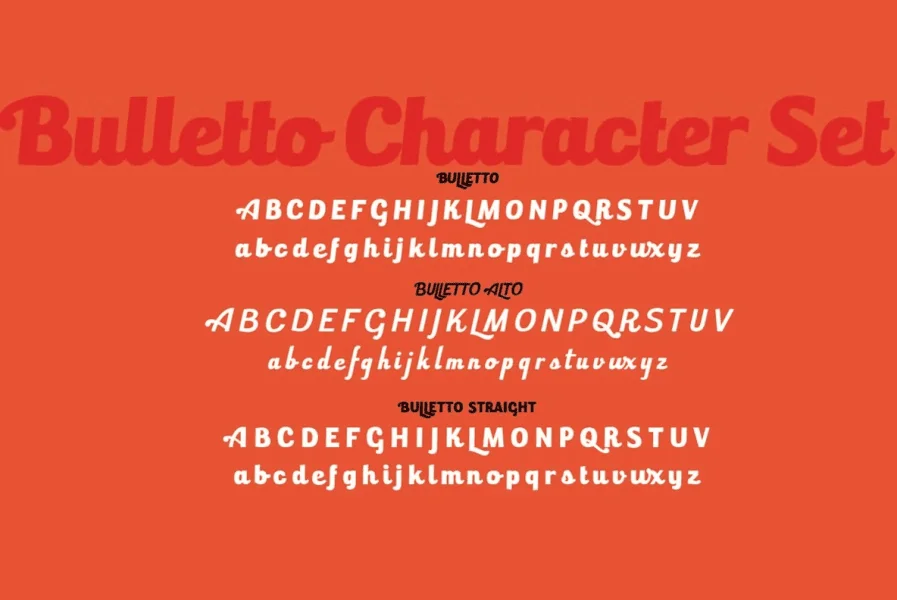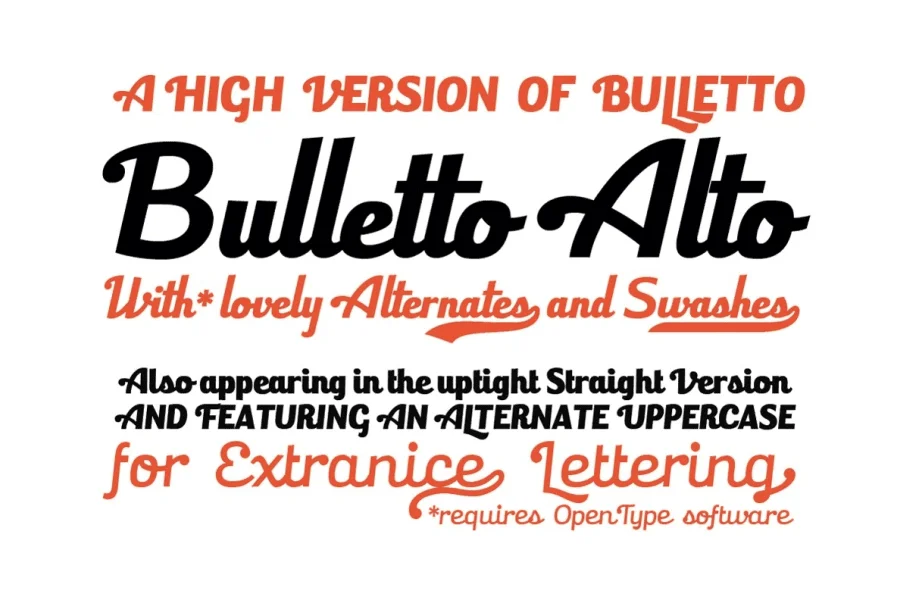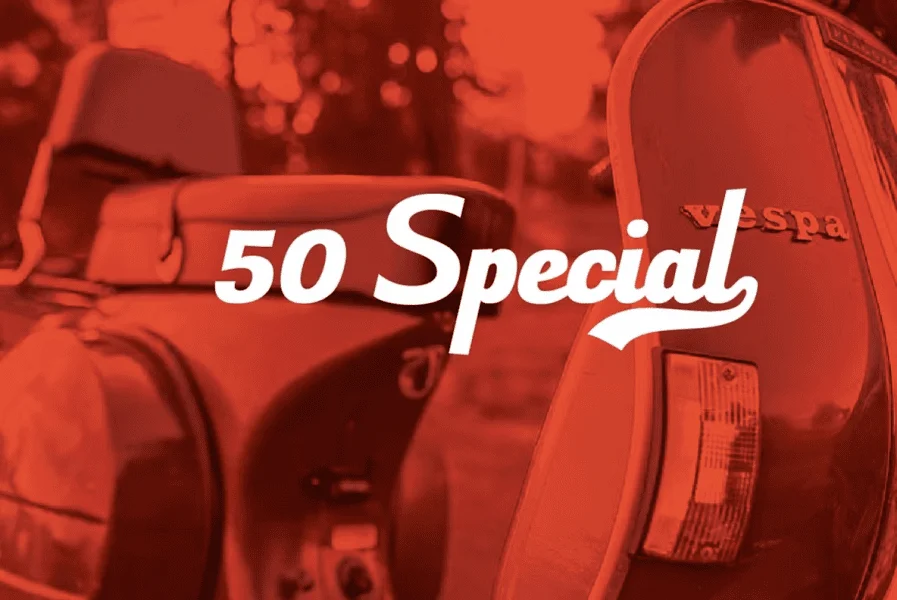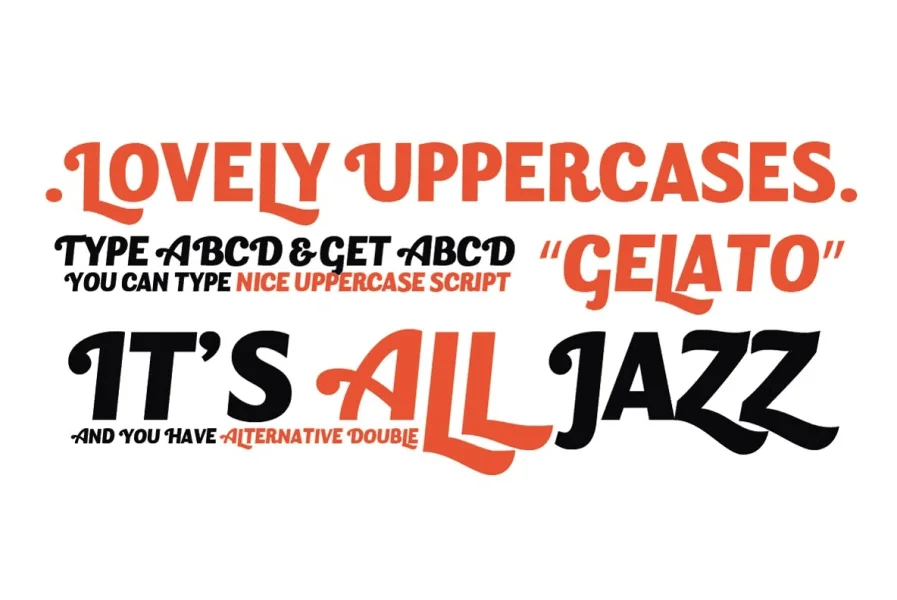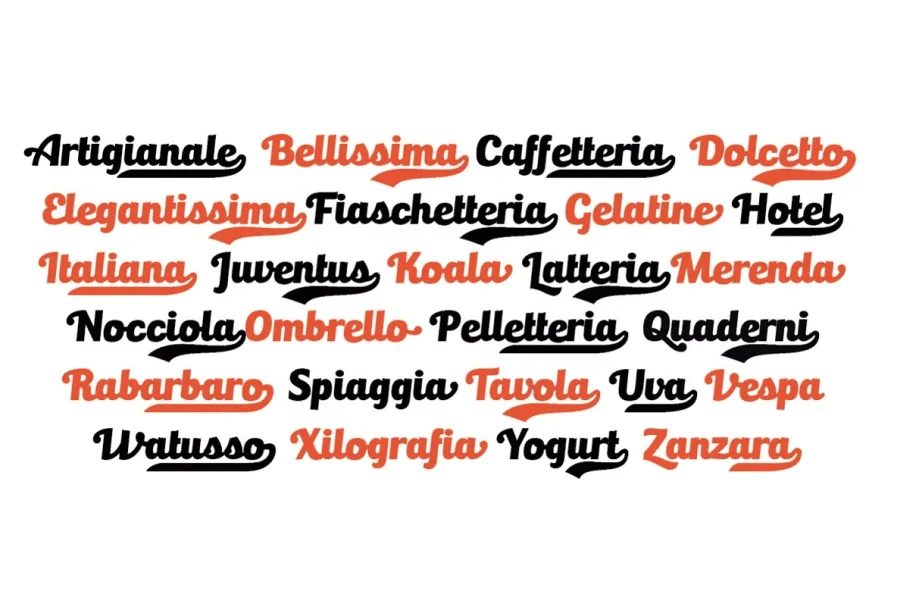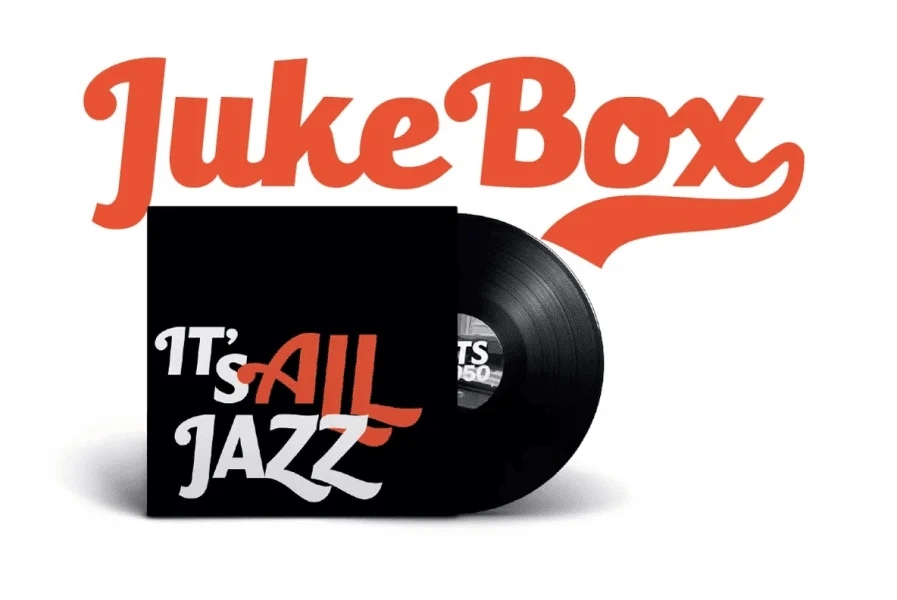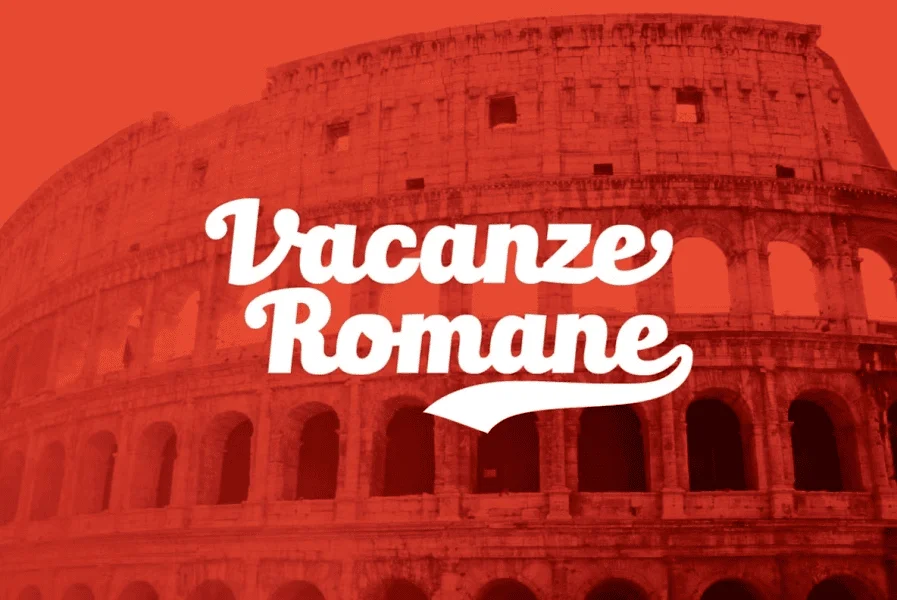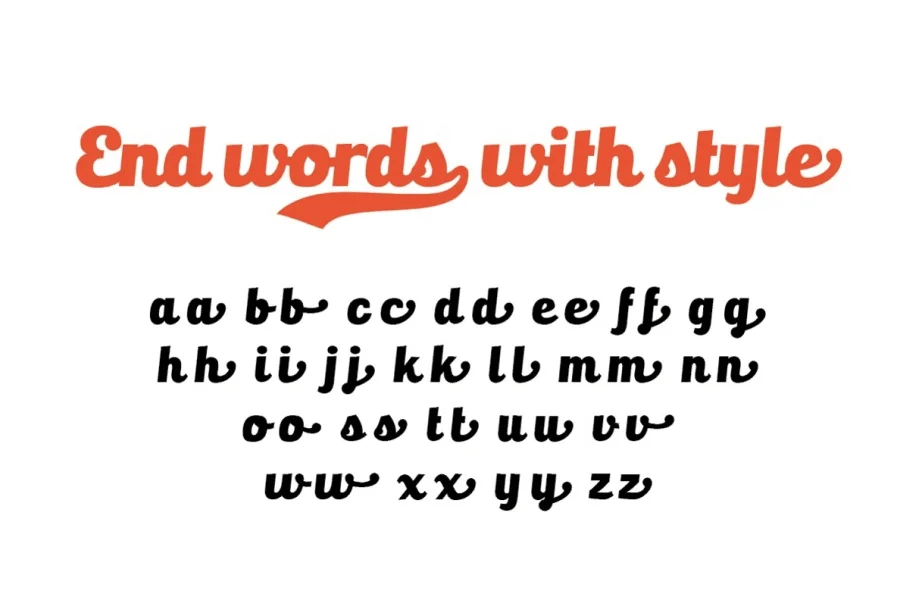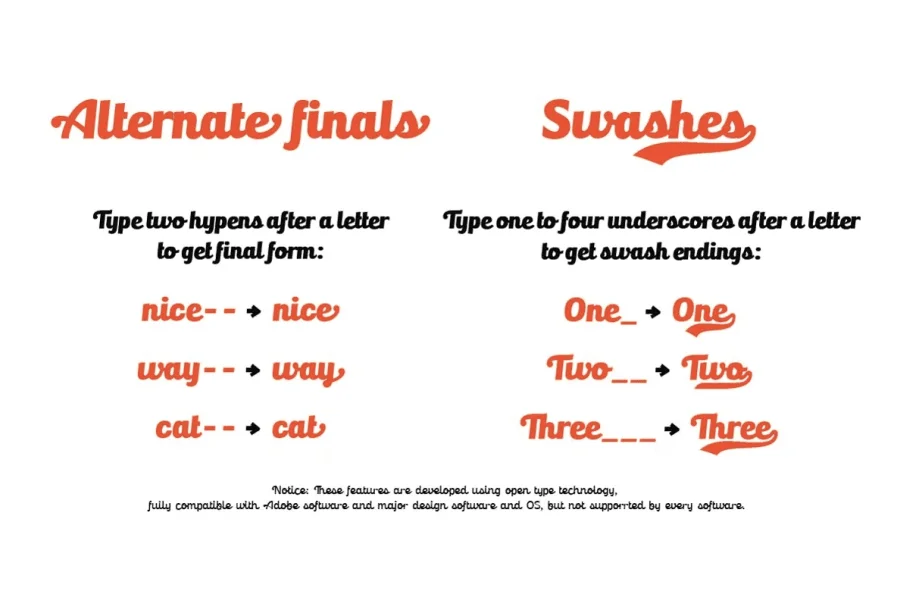
Bulletto is a bold display script font. Made for logos and headlines, it features a slight slant, connecting letterforms and a big x-height. Opentype features available for purchase include ligatures, swashes, alternate finals and a full set of uppercase alternates. The Bulletto family features Bulletto Killa (bold), Bulletto Monoline (light) and Bulletto Alto, a italic version with taller ascenders and descenders for a more calligraphic look.